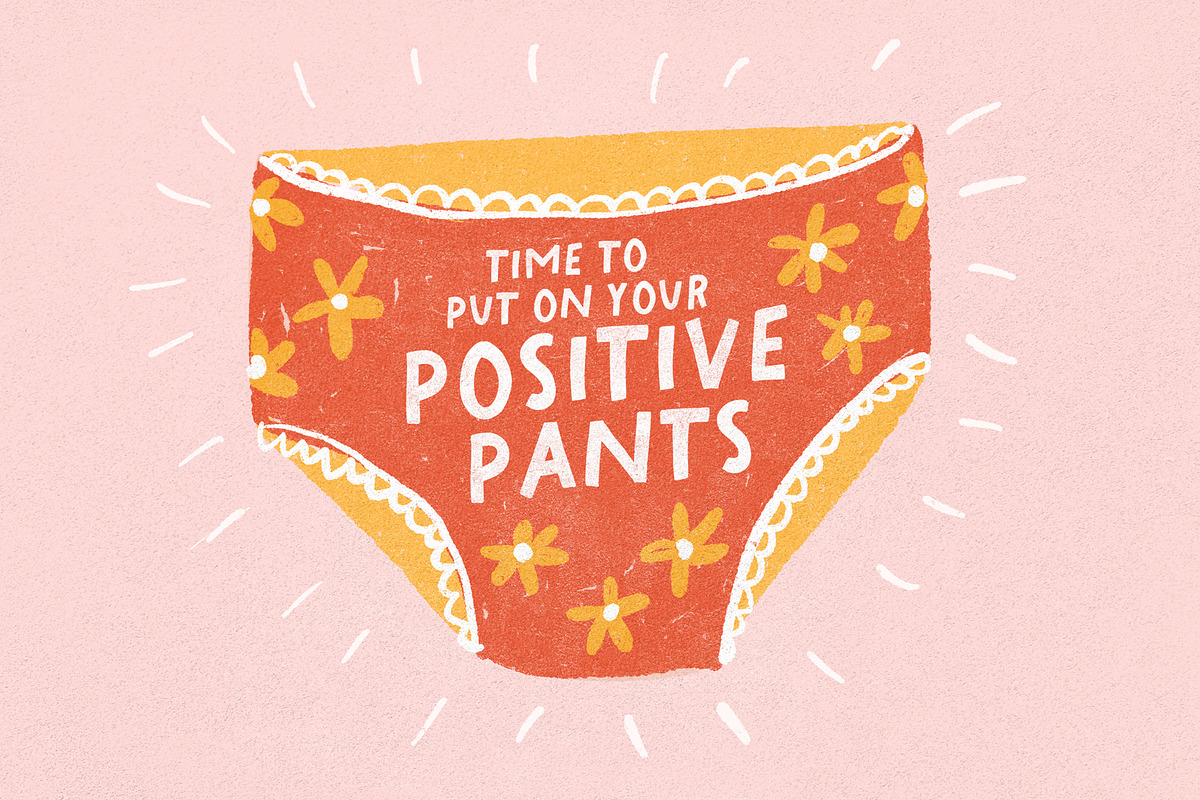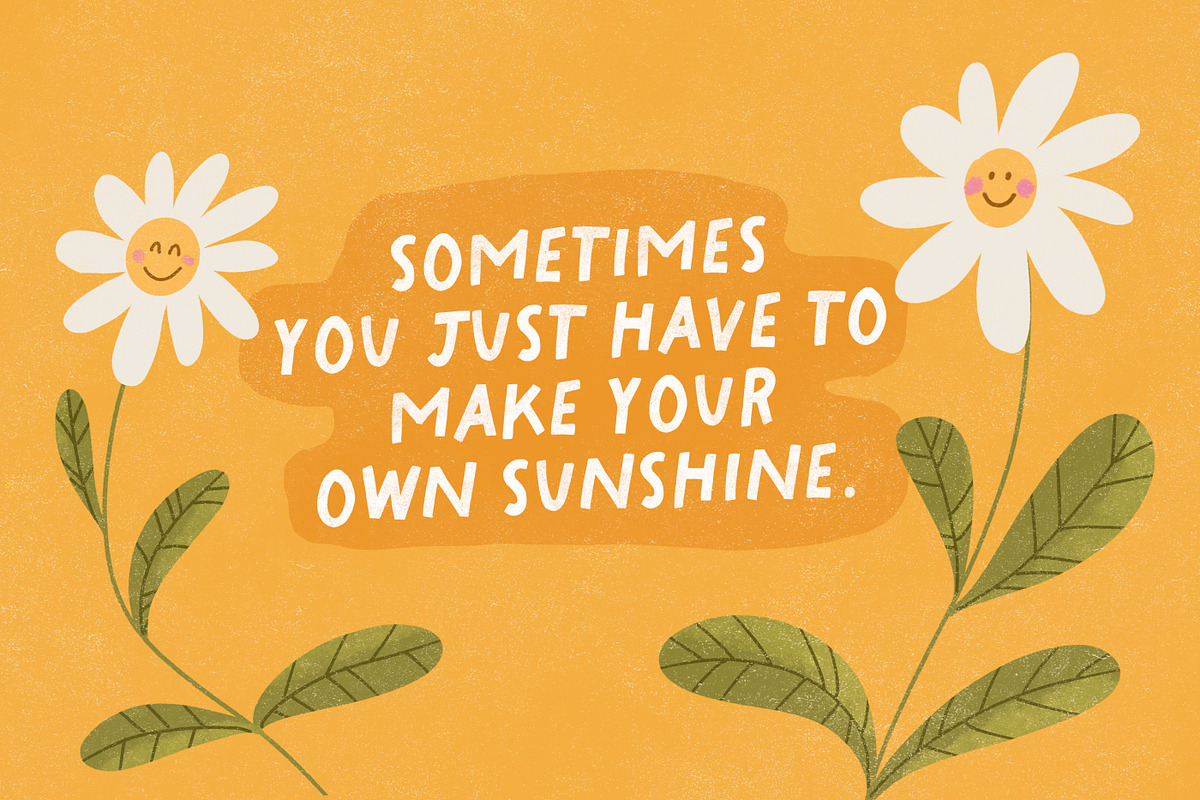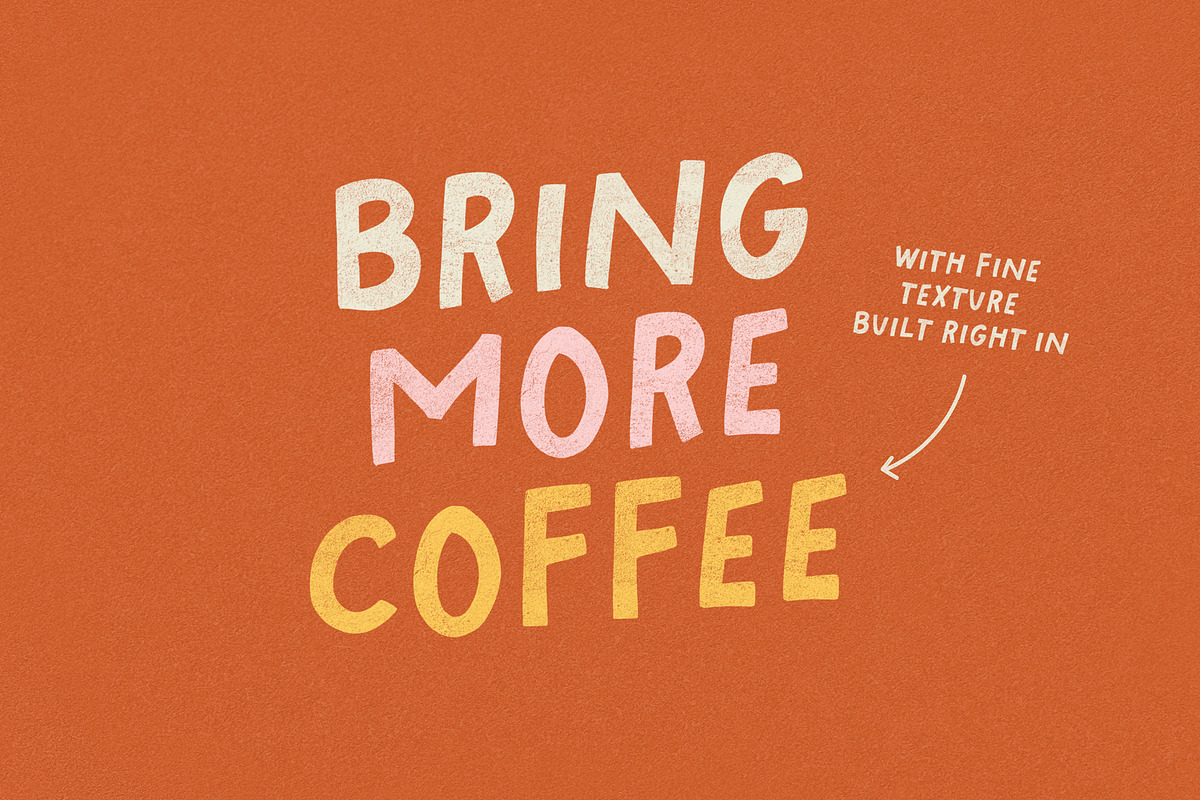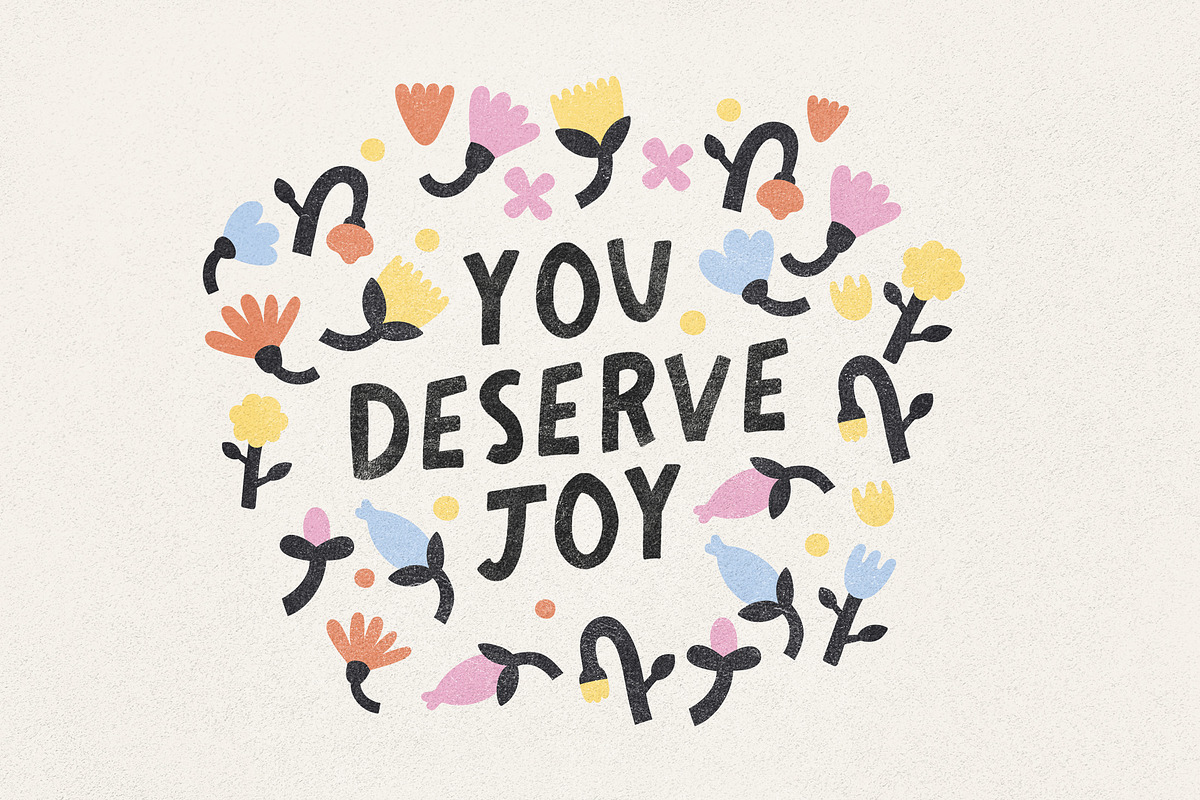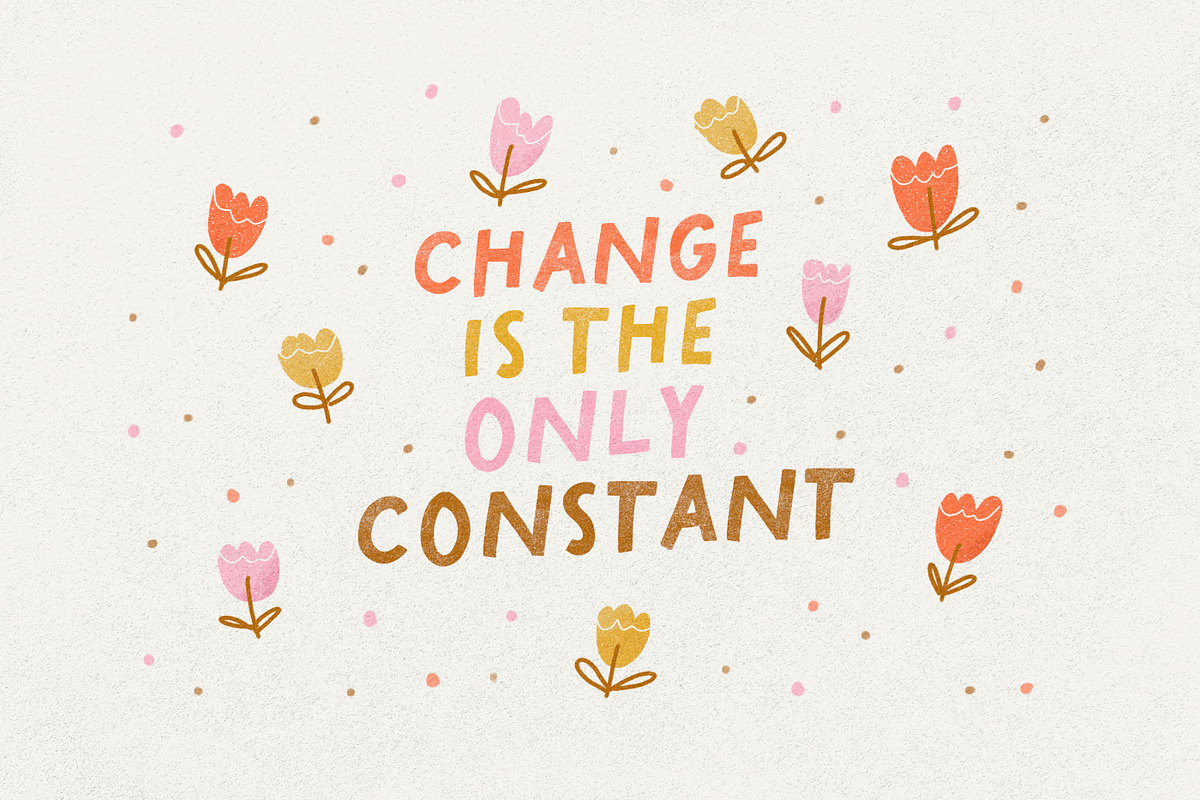
Fandango is a playful, hand-lettered font that comes in two versions: a regular version and an SVG version. The regular version is a standard font file that can be used in most design software.